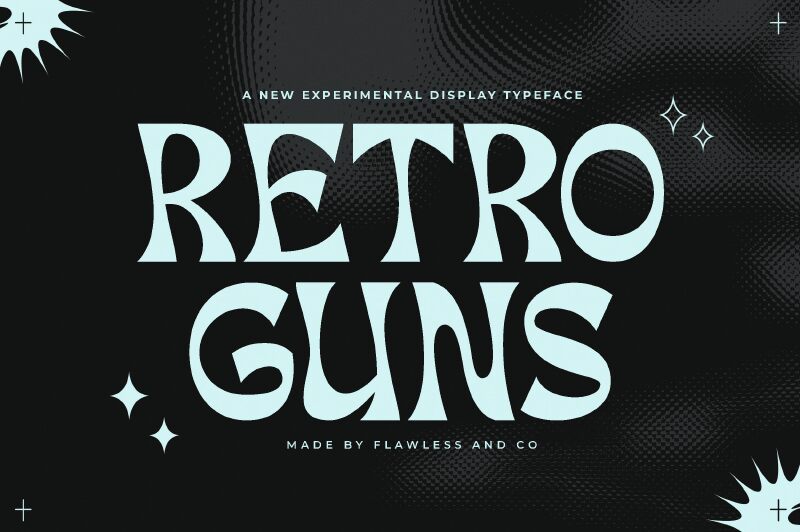
RETRO GUNS Regular
Retro Guns font by Achmad Yani of Flawless and Co. is a free display font designed in a groovy style with an authentic retro aesthetic. The groovy letters carry the influence of the 1960s, noticeable in their slightly wavy baselines and artistic flair. Letters are decorative yet legible, especially to folks used to retro-style artwork.
An excellent fit for music albums, merchandise packaging, vintage business logo designs, and branding designs that demand a nostalgic touch. Bars, pubs, and restaurants can use it for their menus and signage. Retro publication covers and posters can fully come into being with this typeface as well as any of your other projects!